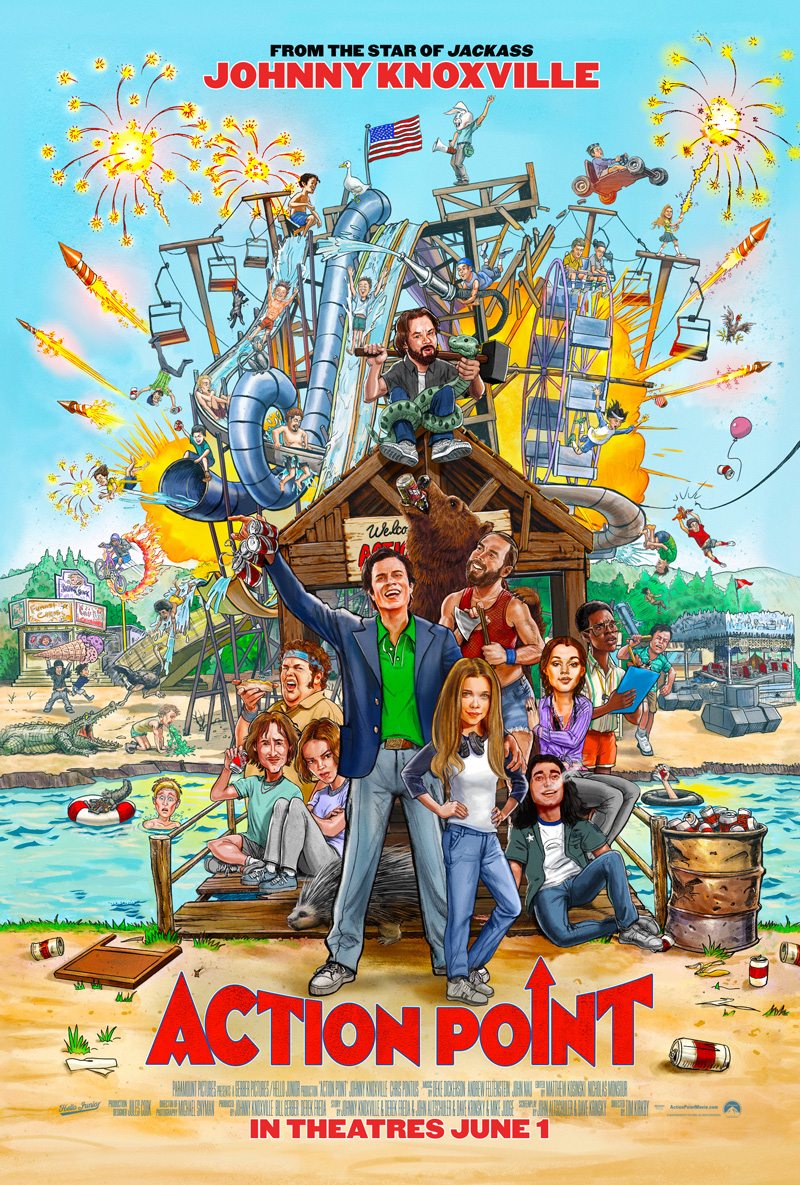
Action Point Font
ComedyAction Point is a 2018 American comedy film directed by Tim Kirkby and starring Johnny Knoxville. The film follows a daredevil who designs and operates his own theme park, with dangerous and unorthodox rides.